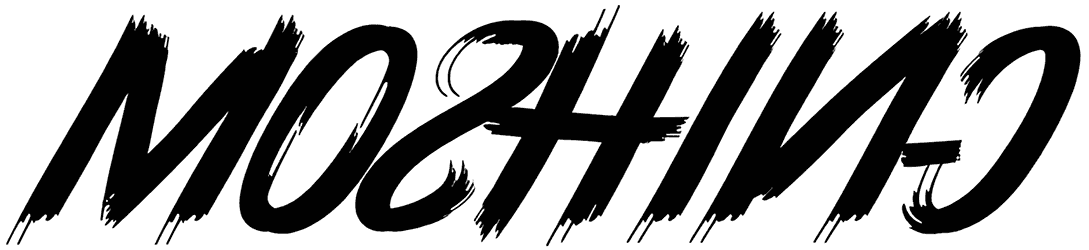
Moshing Font
Let’s bend the rules a little, shall we? Not that normal lettering isn’t fun enough, because it is, especially with brush fonts like Moshing, but why stop there? Next time try it with a bunch of mirrored characters and you’ll see what we’re talking about.
That’s the whole reason Moshing has replaced its lowercase with another set of capitals, but this time facing another direction. Sure, you can think of many things to do with it for artistic purposes and more.